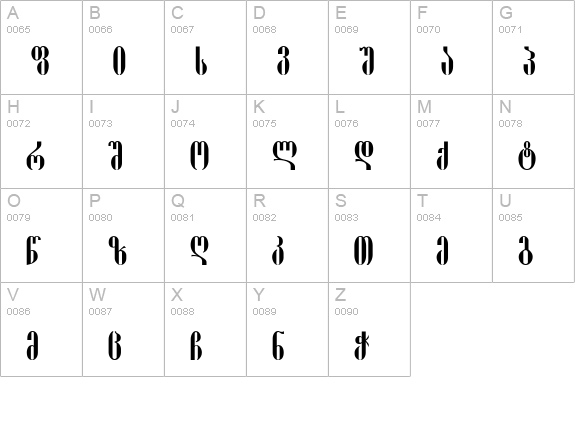
Pakizy-ITV Font Details
Introducing Pakizy-ITV, a stunningly elegant and versatile font that is sure to captivate and inspire. With its sleek and modern design, Pakizy-ITV is perfect for a wide range of creative projects, from branding and logo design to advertising and social media posts. This font boasts a unique combination of boldness and sophistication, making it stand out amongst the crowd. Its clean lines and distinct letterforms add a touch of professionalism and refinement to any text, while still maintaining a sense of playfulness and creativity. But what truly sets Pakizy-ITV apart is that it is available for free. That's right, this extraordinary font can be downloaded at no cost, exclusively at FontsMarket.com. We believe in making quality design accessible to everyone, which is why we are thrilled to offer this beautiful font completely free of charge. Whether you're a graphic designer looking to add some flair to your next project or a small business owner in need of a fresh and eye-catching logo, Pakizy-ITV is the perfect choice. Its versatility and elegance make it suitable for any style or aesthetic, ensuring that your designs will always make a lasting impression. So why wait? Experience the power and beauty of Pakizy-ITV today by downloading it for free at FontsMarket.com. Unleash your creativity and elevate your designs with this exceptional font. Don't miss out on the opportunity to enhance your projects with the perfect blend of style and professionalism. Get your hands on Pakizy-ITV now and watch your designs come to life!